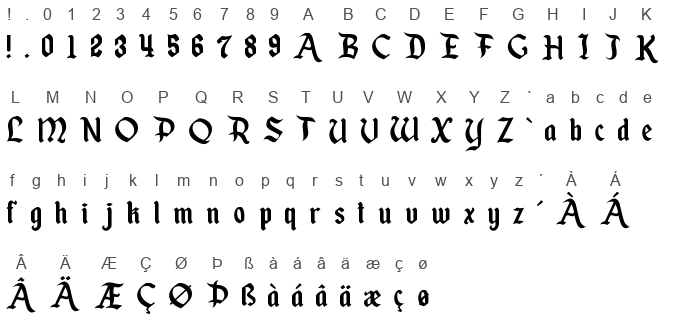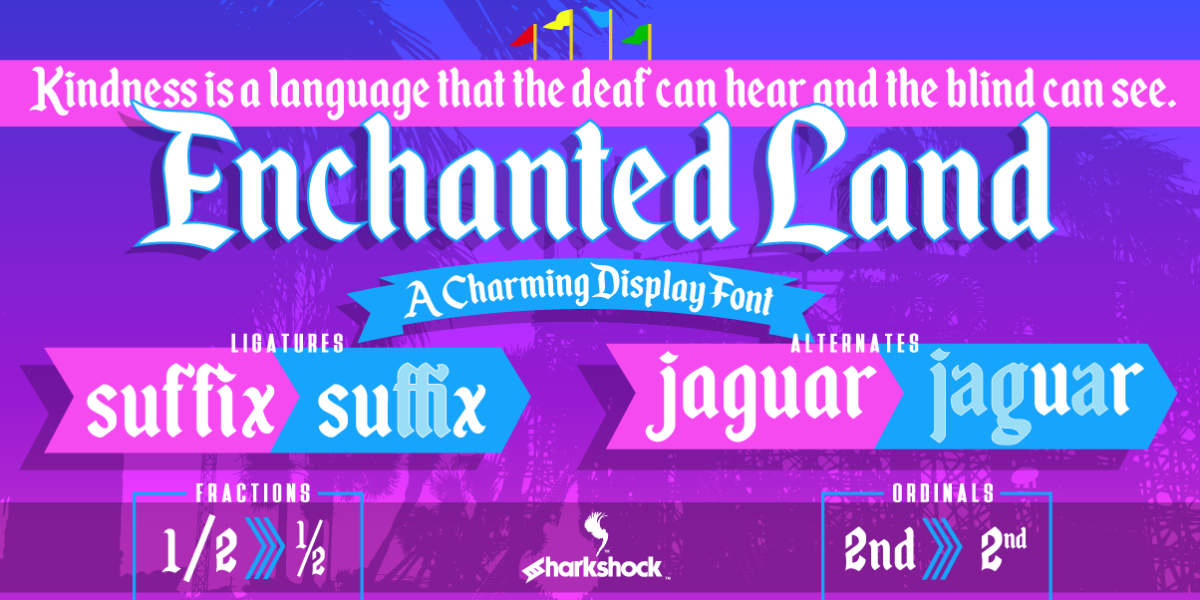
The Enchanted Land II font is a visually striking display serif typeface that is highly decorative. It clearly falls into the old-english or medieval style, evoking the feel of fantasy or historical themes. The font is characterized by bold, curving lines and swashes on the uppercase letters, which add a charming quality to the design. It is a versatile font that includes features like ligatures, alternate characters (or alternates), and special characters for fractions and ordinals. Its initial-caps (uppercase) and lowercase letters both feature a stylized script-like appearance.
Enchanted Land